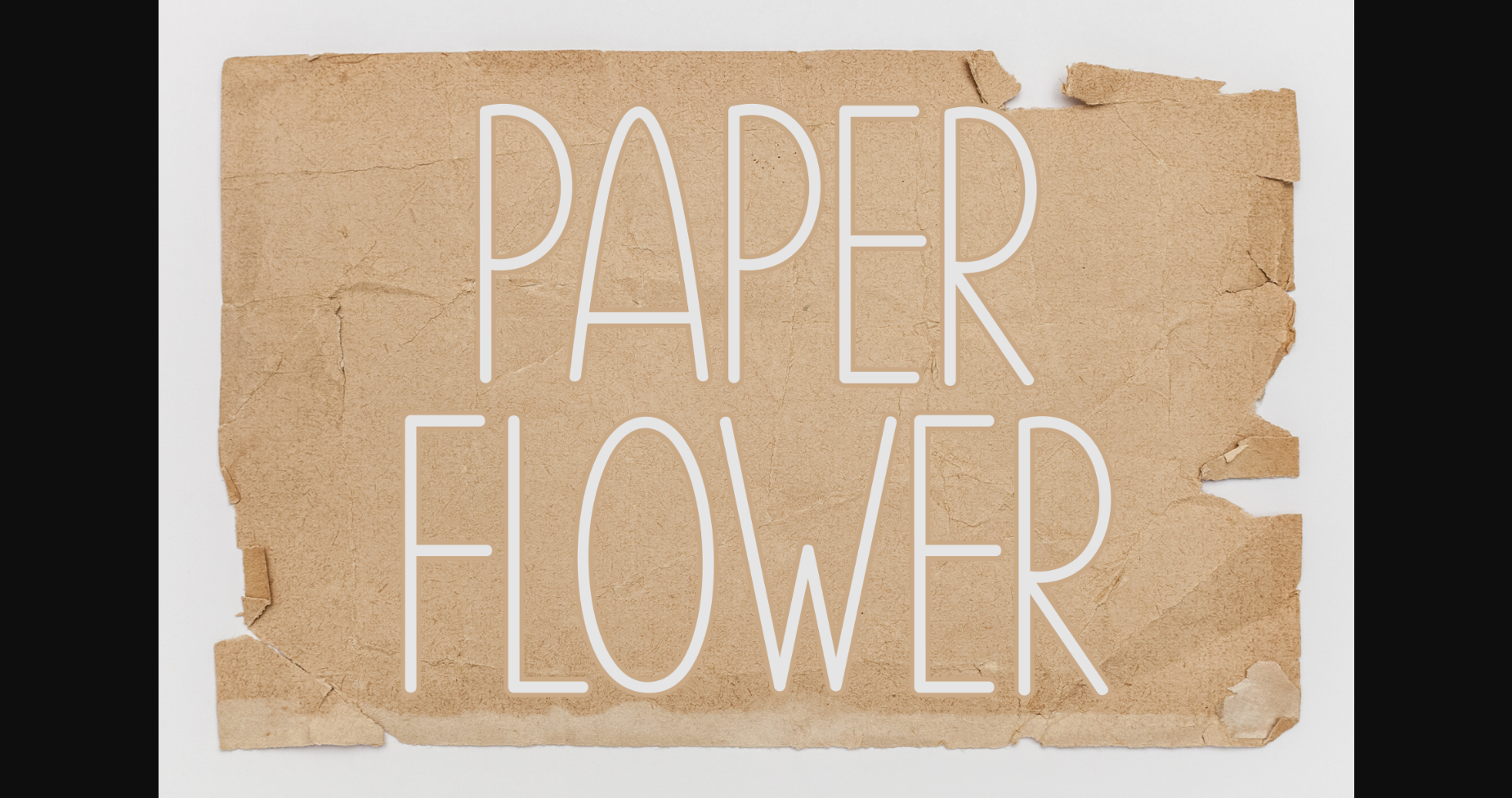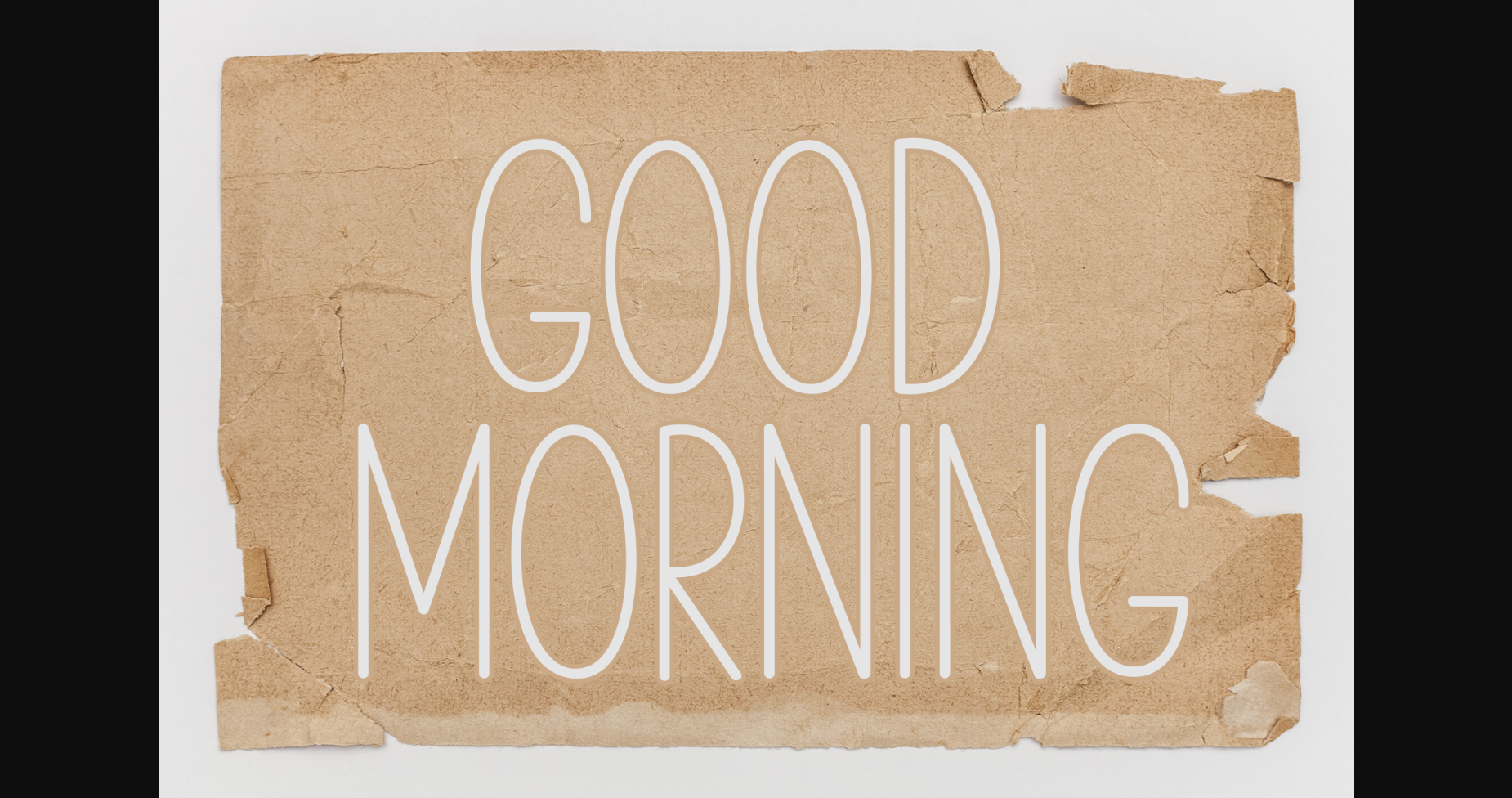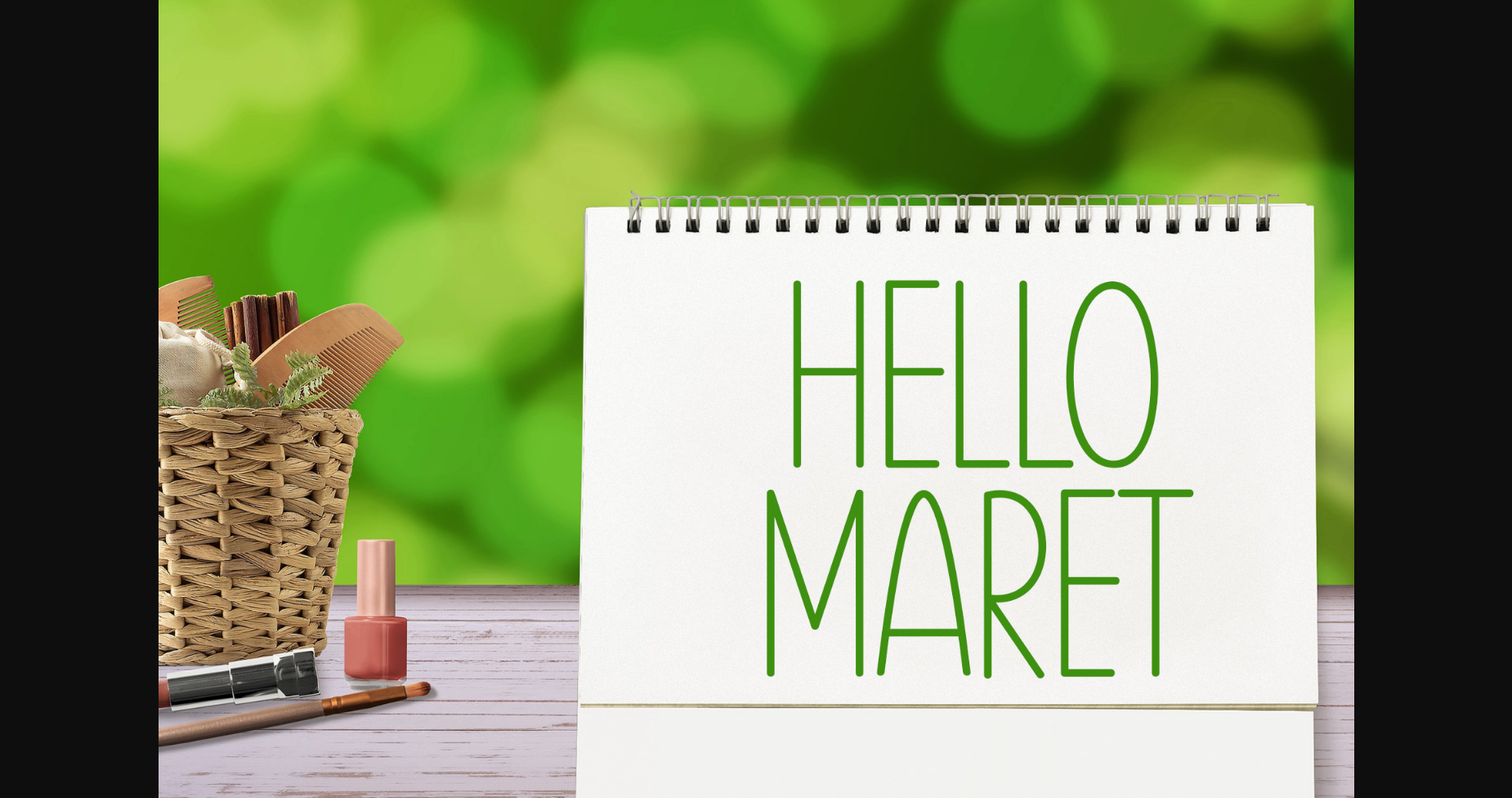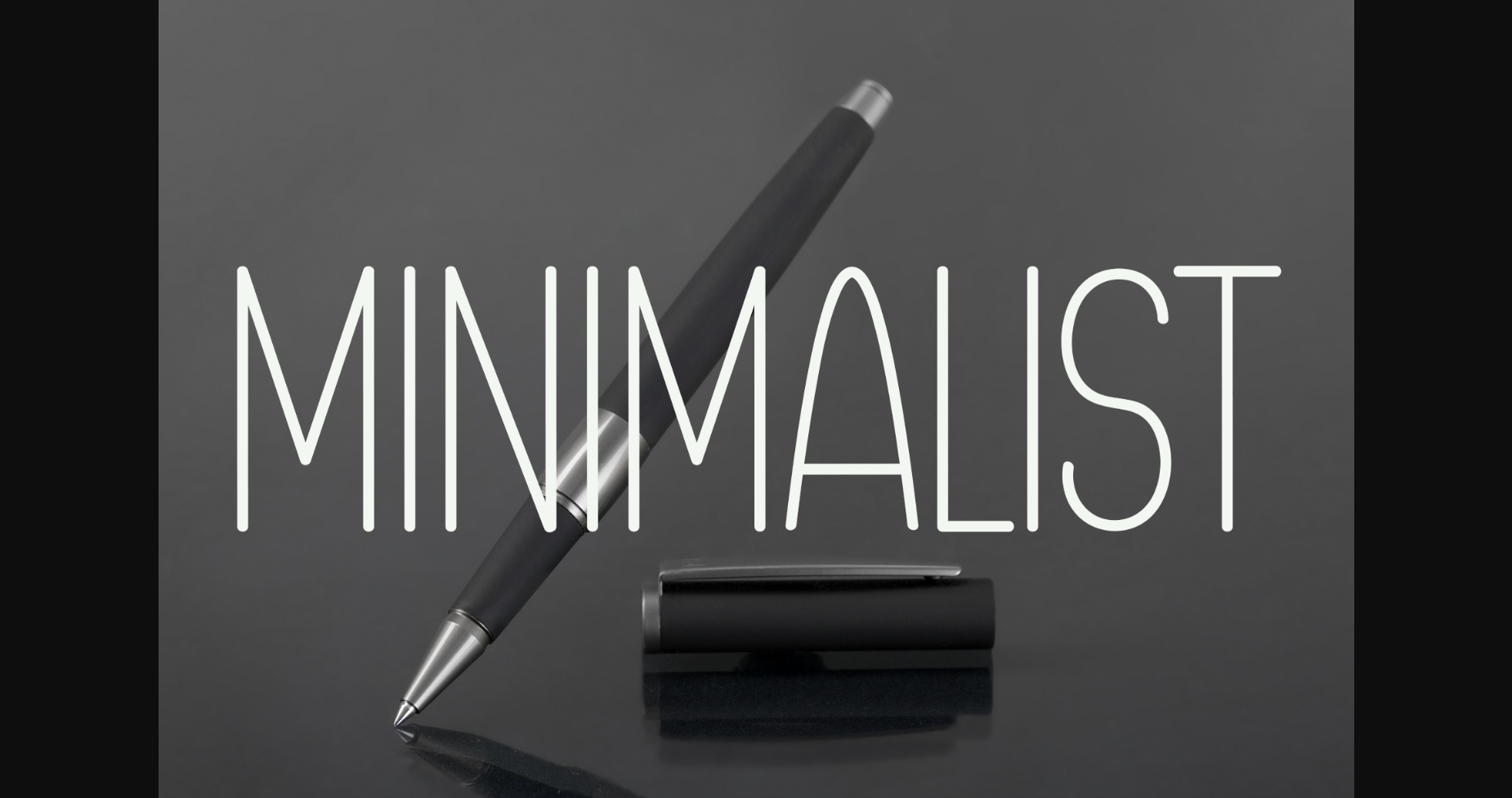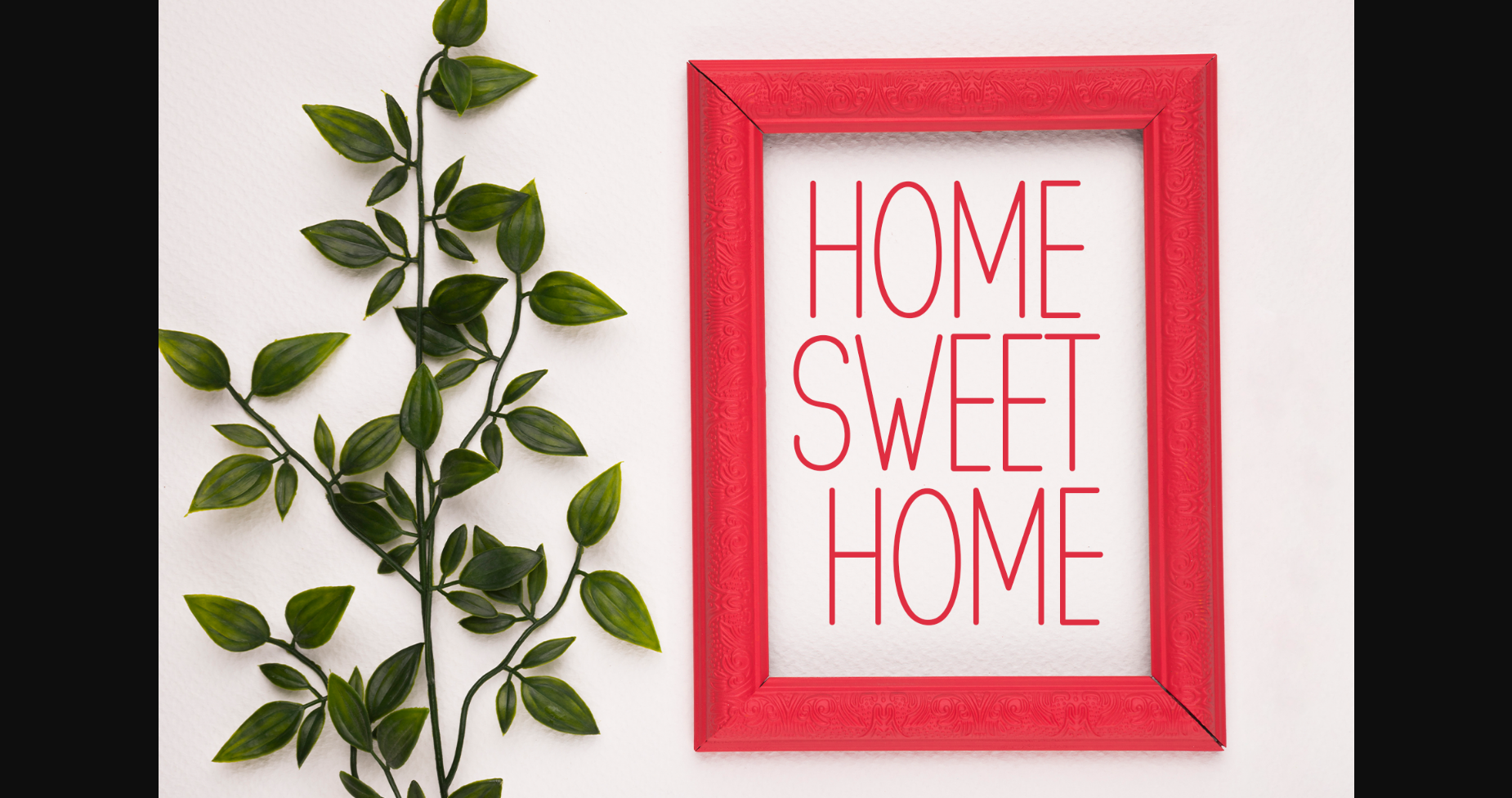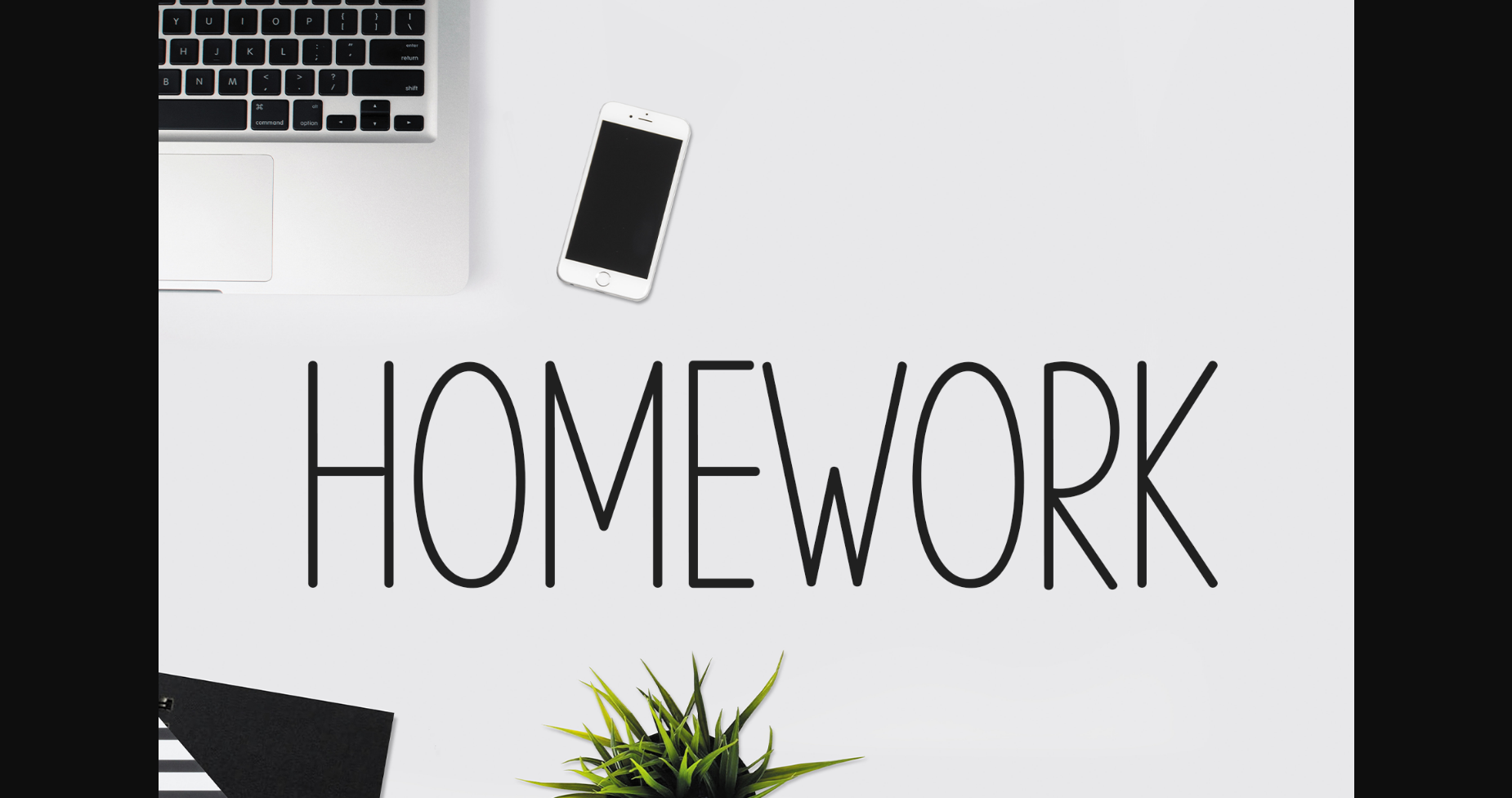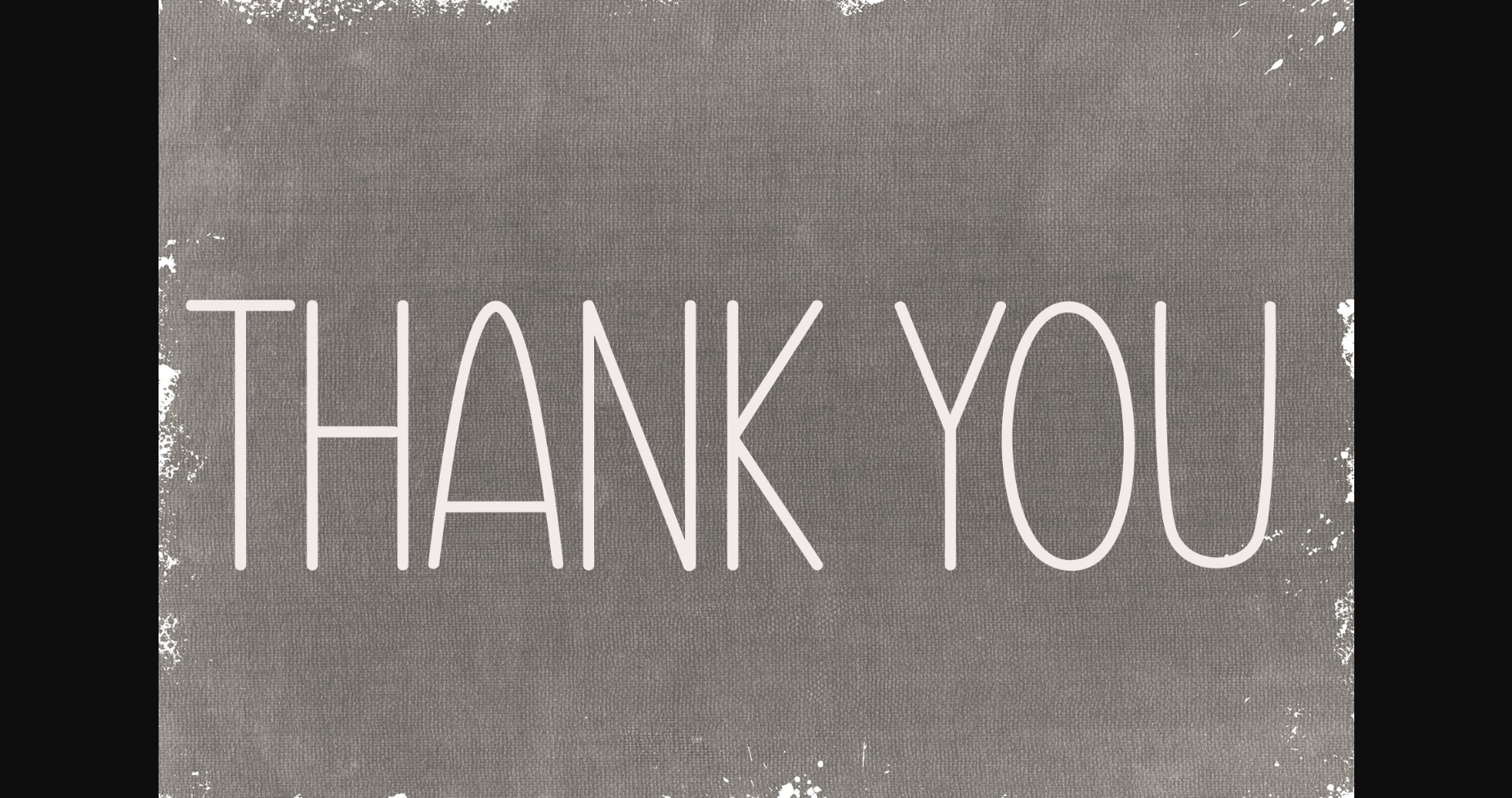
Paper Flower Font
About Paper Flower Font
Paper Flower is a cool and modern sans serif font. Whether you’re using it for crafts, digital design, presentations, or making greeting cards, this font has the potential to become your favorite go-to font, no matter the occasion.